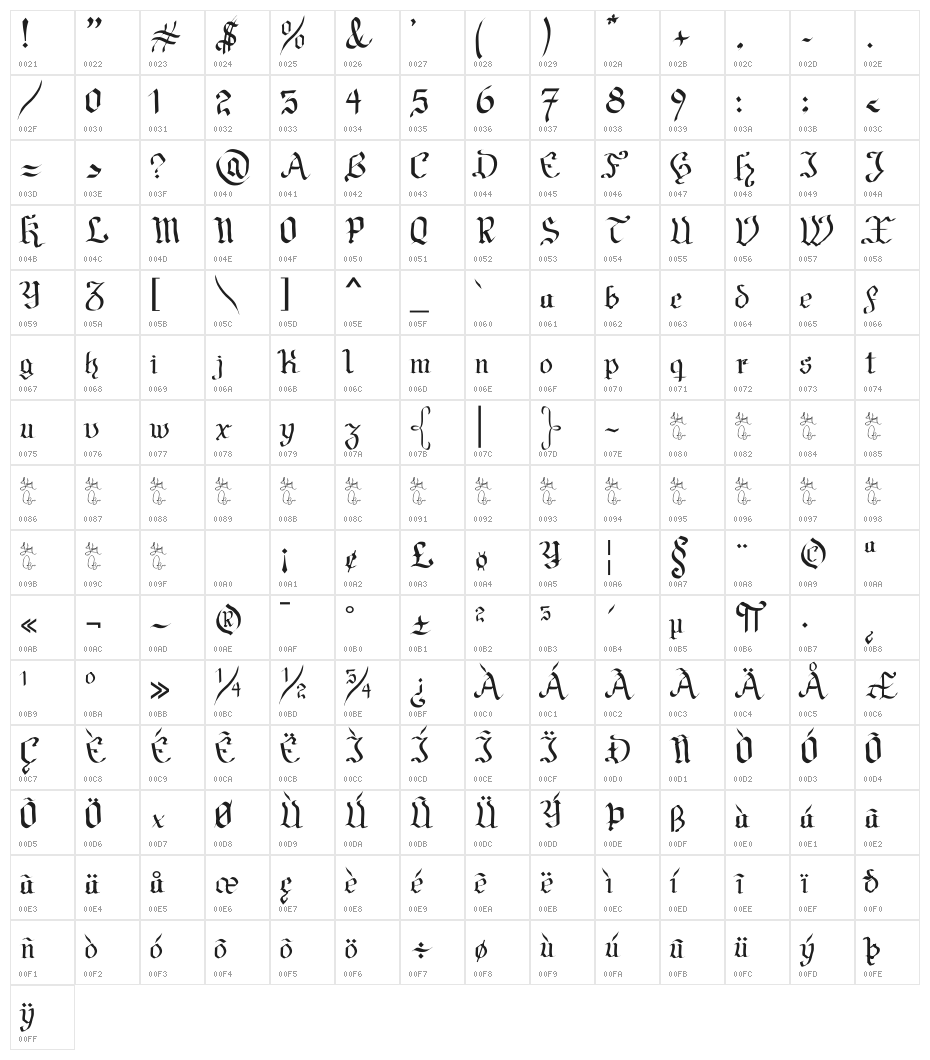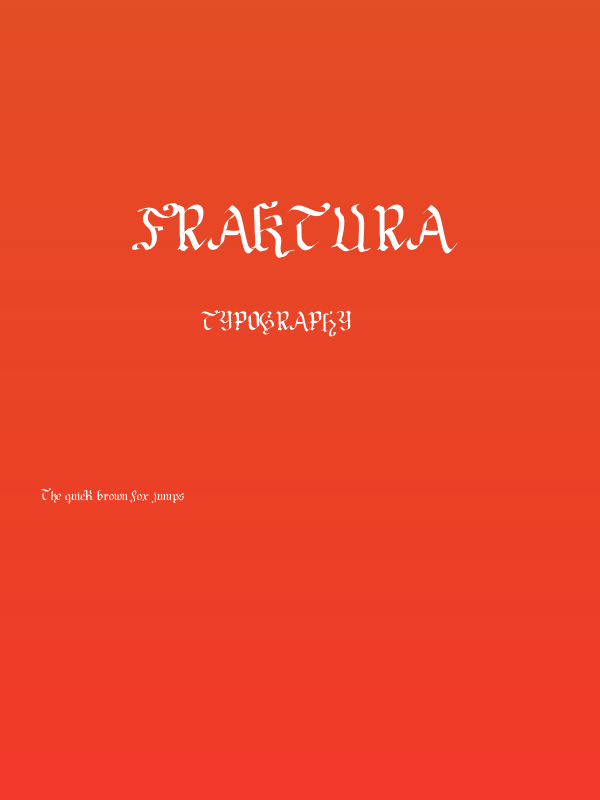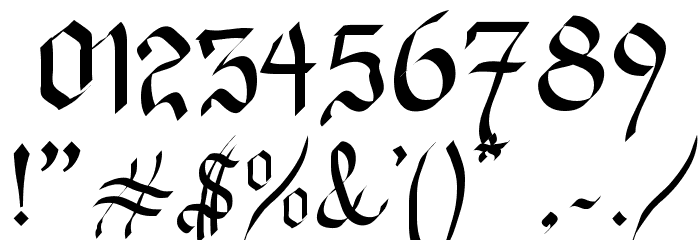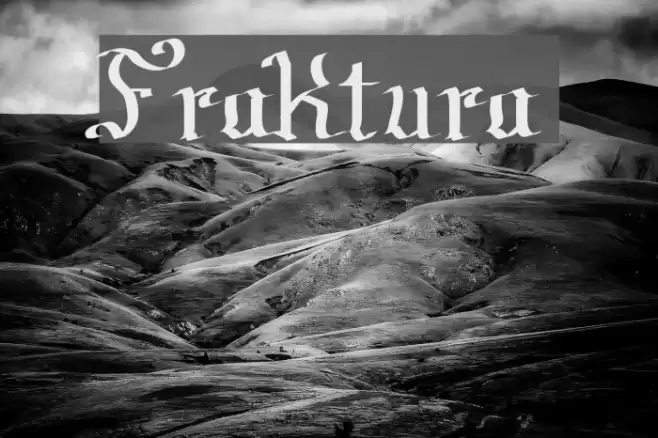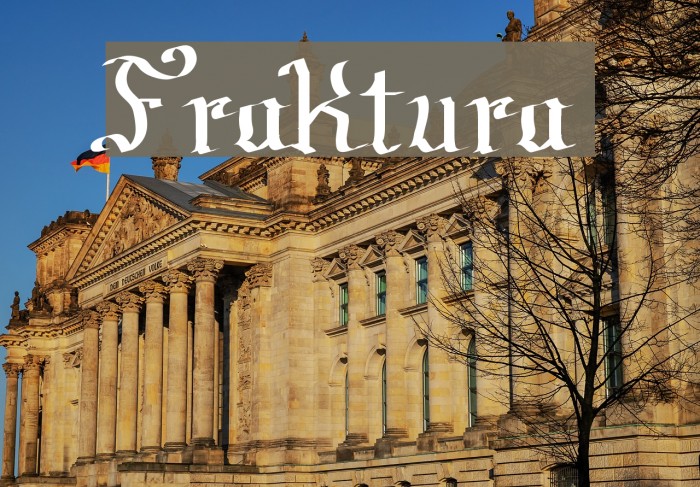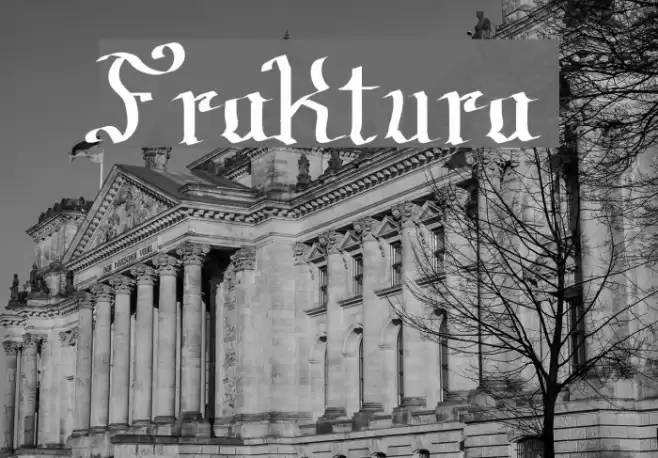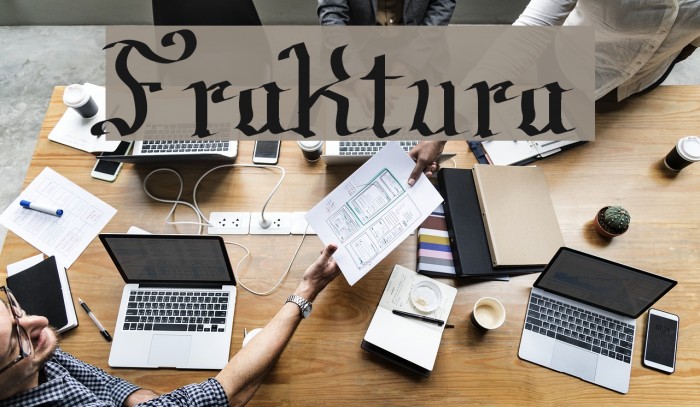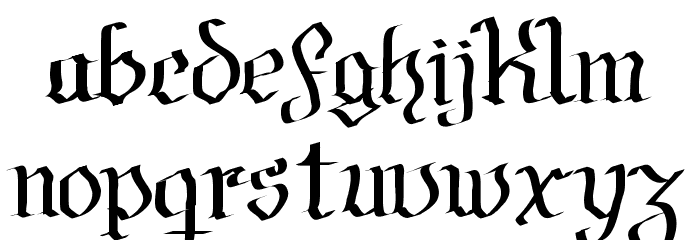
Fraktura Font
Fraktura Description
This font is a classic example of Blackletter style, characterized by its ornate and intricate design. The letters are bold and angular, with sharp, pointed edges and elaborate flourishes. The uppercase letters are particularly striking, with dramatic curves and a strong presence. The lowercase letters maintain the same level of detail, creating a cohesive and visually impactful typeface. The numerals are equally stylized, with a consistent weight and design that complements the alphabet. Special characters are included, featuring the same decorative elements that define the overall aesthetic. This font is reminiscent of medieval manuscripts and traditional calligraphy, making it ideal for projects that require a historical or formal touch.
| Overall Style | Classic |
| Use Case | Logos, Headlines, Decorative text |
| Proposed Projects | Suitable for wedding invitations, certificates, historical documents, book covers, and branding that requires a traditional or formal appearance. |